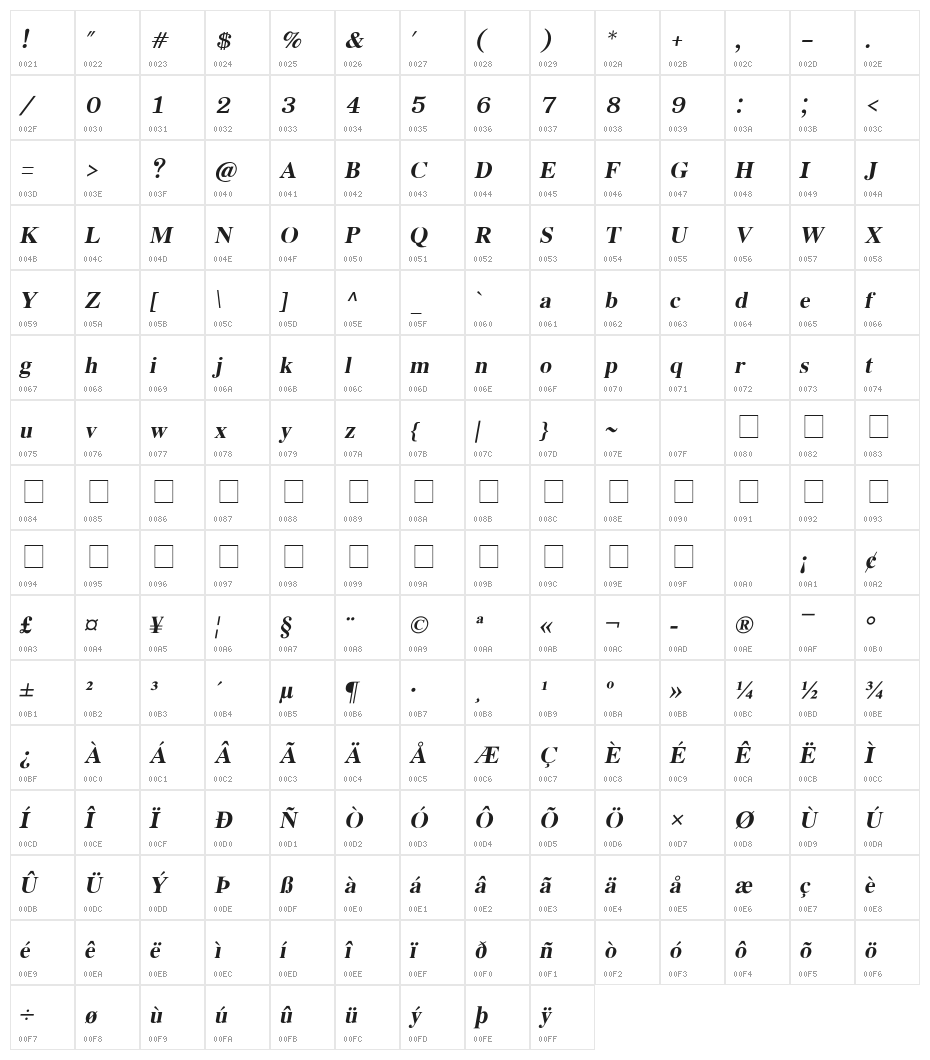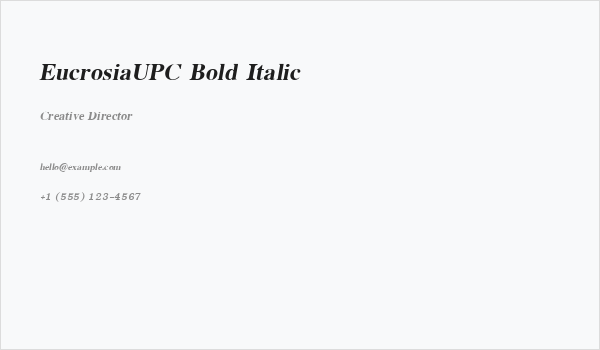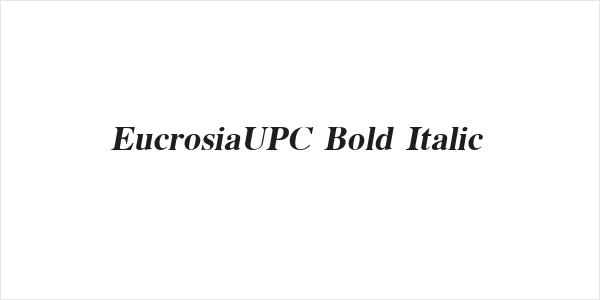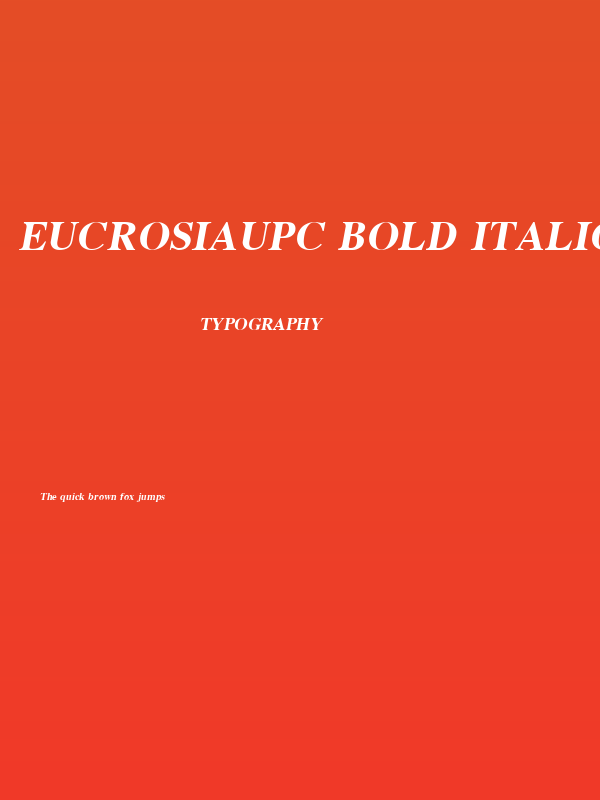
EucrosiaUPC Bold Italic Font
EucrosiaUPC Bold Italic Description
This font exhibits a classic serif style with a bold and italicized appearance, offering a sophisticated and elegant look. The characters are well-defined with a noticeable slant, enhancing the italic effect. The serifs are pronounced, providing a traditional feel, while the bold weight adds a modern touch. The uppercase letters are tall and commanding, while the lowercase letters maintain a consistent style with slightly rounded edges. The numerals are clear and easy to read, and the special characters are distinct, complementing the overall aesthetic. This font is versatile, suitable for both formal and creative applications.
| Proposed Projects | Ideal for book covers, formal invitations, branding, and editorial design. |